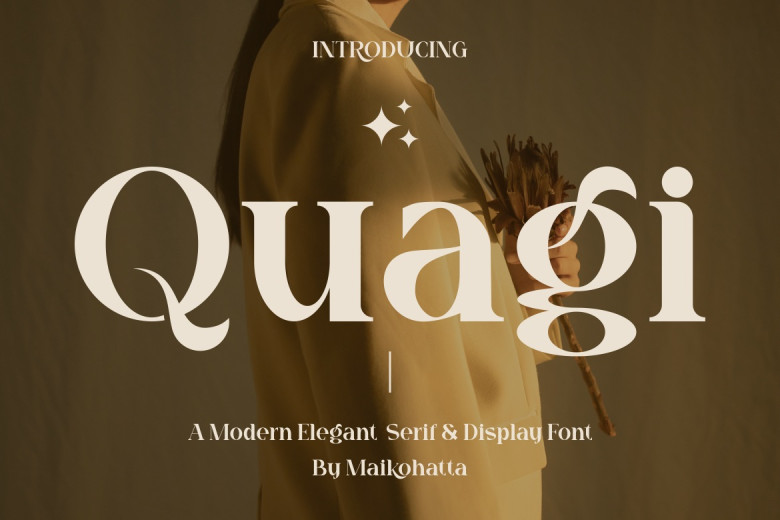
Quagi Font
Quagi features an elegant serif font that exudes modernity. Perfect for logos, template designs, Esports tournaments and much more; Quagi stands out in many contexts.
Quagi Serif Font